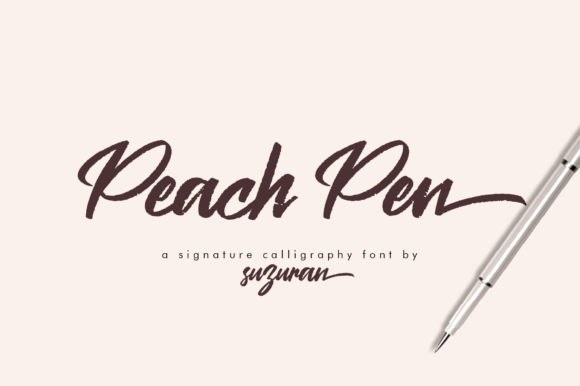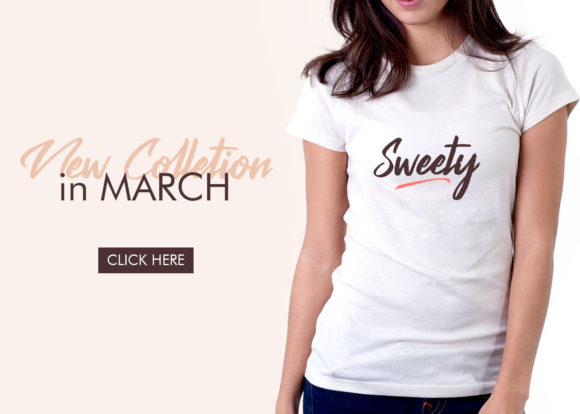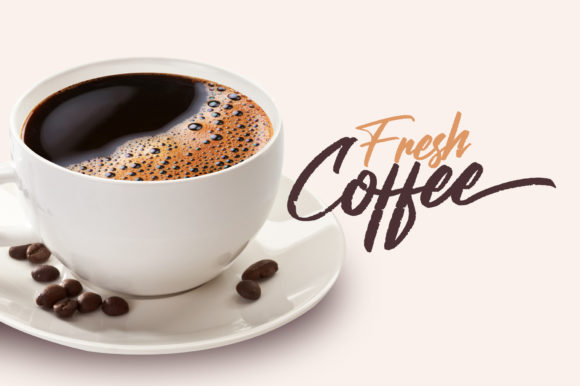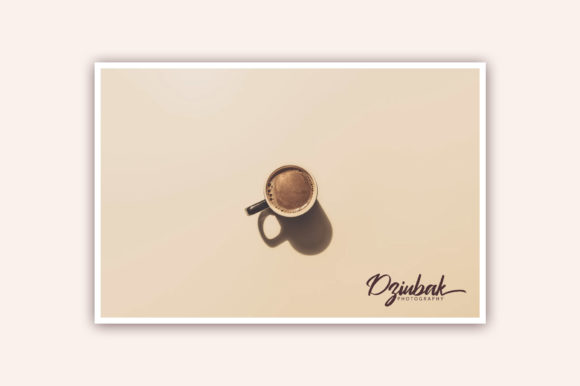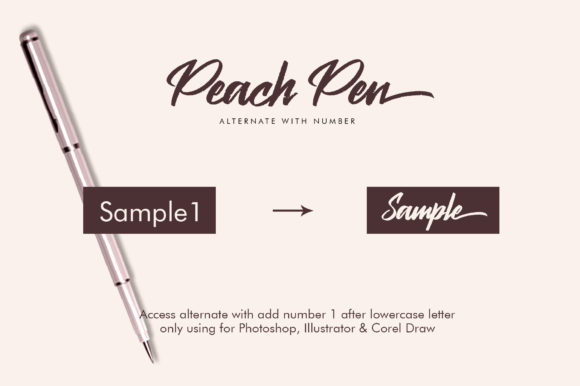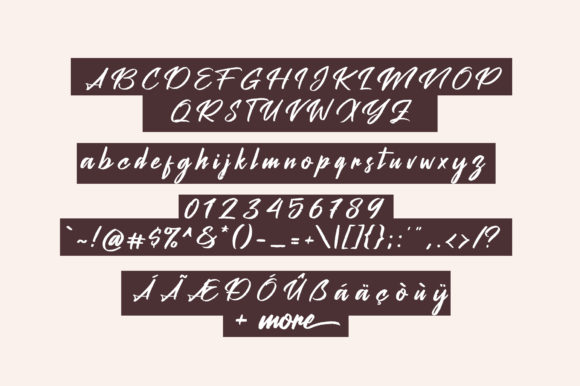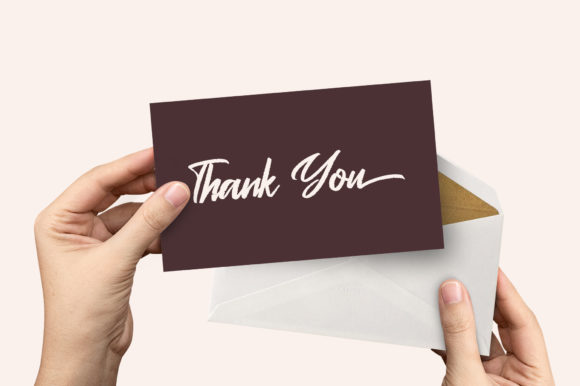
Peach Pen Font
About Peach Pen Font
Peach Pen is a fresh and unique script font with an undeniably elegant feel. Together with the bold Night in Kansas font, which is also included in the download, it will add a sophisticated spark to any creative project!